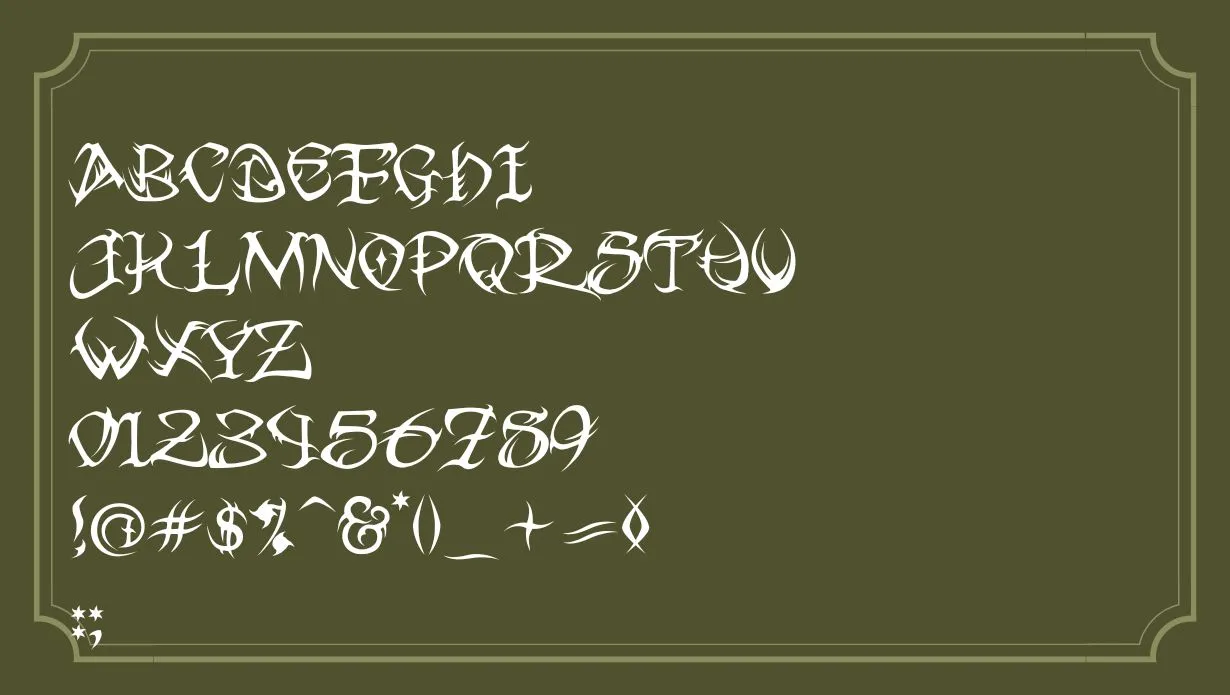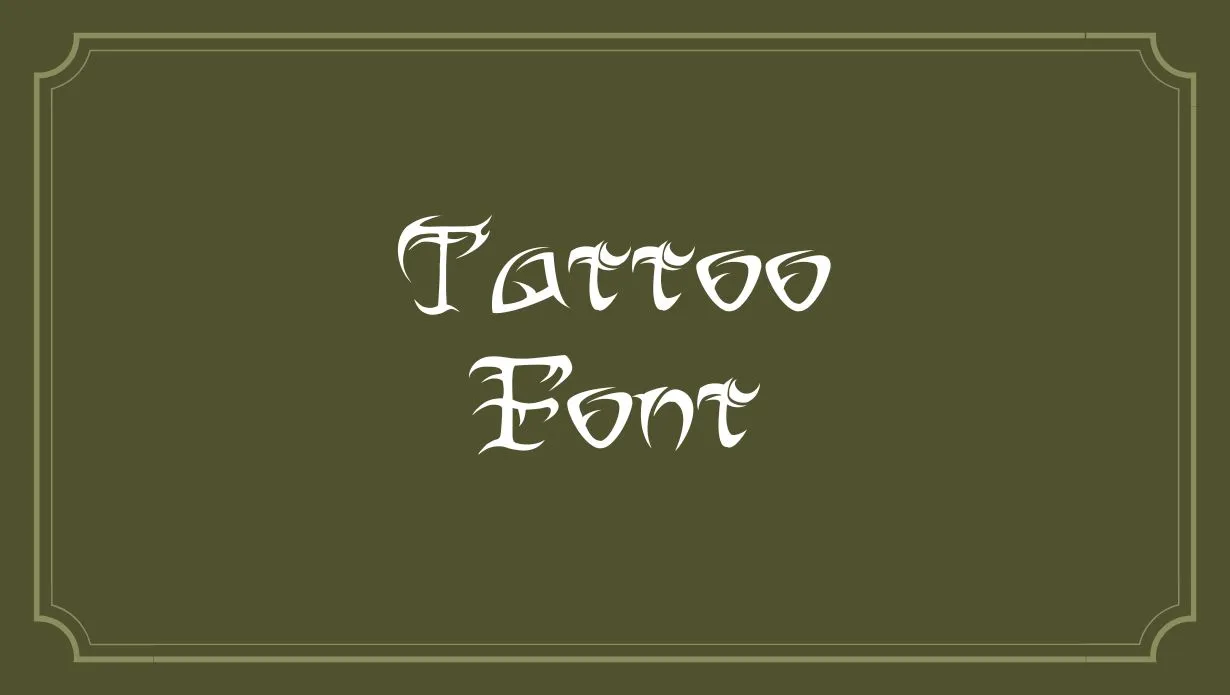
About Tattoo Font
Tattoo Font is not one specific typeface but a genre encompassing styles traditionally used in tattoo art. This includes bold Blackletter (Old English), flowing and ornate Script fonts, sharp Tribal patterns, traditional Americana (Sailor Jerry-style lettering), and gothic serifs. Each style carries its own subcultural meaning and aesthetic, from rebellion and heritage to personal expression and artistry. Choosing a tattoo font is about matching the visual style to the symbolic weight of the text.